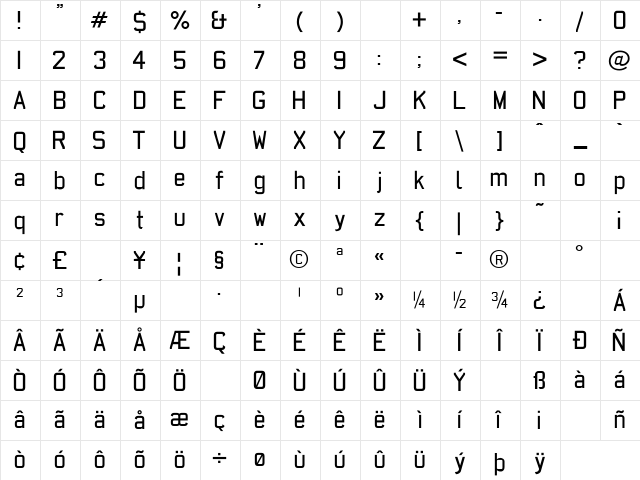
Complete AFCarplates Medium glyph index. Displaying only characters natively supported by AFCarplates Medium font.
AFCarplates is a composed and adaptable typeface that performs quietly and consistently across a wide range of design contexts.